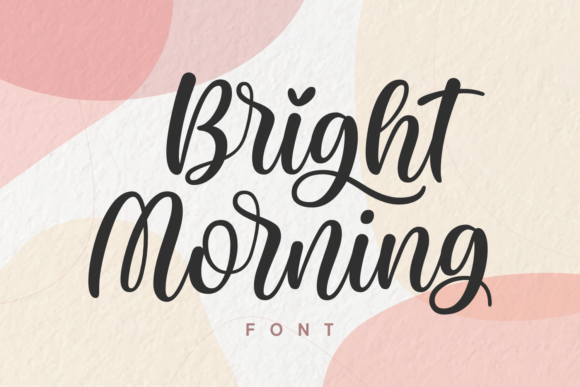
The Bright Morning Font: A Joyful Addition to Your Design Toolbox
Have you ever been in the middle of a design project, and suddenly, you’re stuck on finding the perfect font? I recall a recent experience where I was working on a whimsical stationery set for a client, and I just couldn’t find a font that captured the playful, cheerful vibe I was going for. That’s when I stumbled upon the Bright Morning font, and it instantly became the star of the show! ✨
An Honest Review of Bright Morning Font
I’m excited to share my thoughts on the Bright Morning font, and I’ll be honest with you – it’s a real treat! Here’s what I love about it:
- ✨ Adorable quirky handwritten style that’s perfect for adding a personal touch to your designs
- ✅ Perfect for creating beautiful stationery art, eye-catching social media posts, and more
- ✨ Playful style that’s sure to bring a smile to your audience’s faces
Now, no font is perfect, and here are a few small quirks to keep in mind:
- 🤔 Some users might find the font a tad too playful for very formal designs
- ⚠️ Keep in mind that the font’s legibility might decrease at very small sizes
The Story Behind Bright Morning Font
Bright Morning font was designed with the intention of spreading joy and playfulness through typography. The designer, inspired by the beauty of handwriting and the world of stationery, aimed to create a font that would bring a smile to people’s faces. And I think they succeeded! 😊
| Is Bright Morning font suitable for body text? | While Bright Morning font is beautiful, it’s best suited for headlines, titles, and short paragraphs. For body text, you may want to choose a more legible font. |